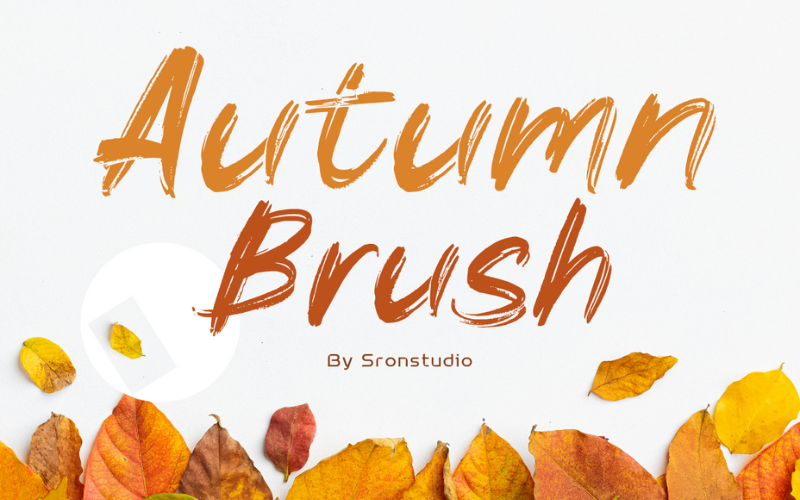
Autumn Brush Font Font
About Autumn Brush Font
Autumn Brush is a vibrant hand brush font that captures the essence of natural strokes and artistic flair. Its dynamic, textured characters bring a bold and authentic feel to your designs, perfect for logos, posters, invitations, and anything that needs a touch of creativity and warmth. Embrace the autumn spirit with this expressive and playful font!